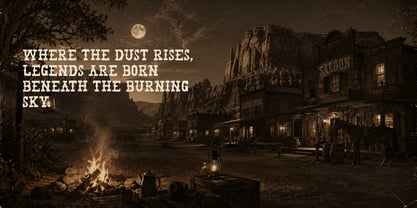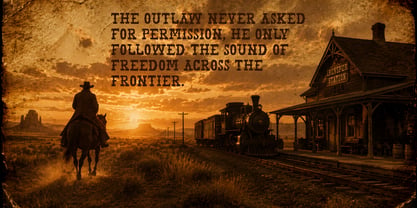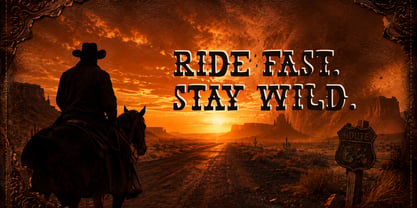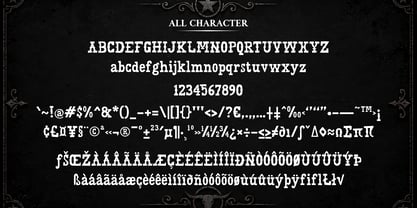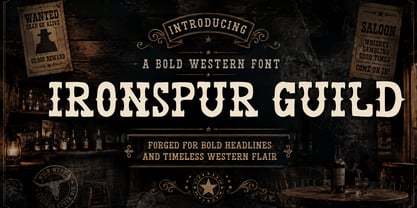
Ironspur Guild
by Mei Suseno
The Ironspur Guild Font Family was designed by Wahyu Eka Prasetya, Mei Suseno and published by Mei Suseno. Ironspur Guild contains 1 styles. More about this family
IRONSPUR GUILD is a bold western display font inspired by vintage saloon signs, outlaw posters, and rugged frontier aesthetics. Featuring strong letterforms with classic cowboy-era character, this typeface delivers a powerful presence perfect for headlines, branding, posters, logos, packaging, apparel, and cinematic western-themed designs.
Its sharp personality combines rustic charm with dramatic vintage elegance, making every word feel legendary and timeless. Whether used for Wild West visuals, retro Americana projects, country branding, or bold editorial layouts, IRONSPUR GUILD captures the spirit of freedom, dust, iron, and frontier storytelling.
Perfect For:
• Western & cowboy themes
• Vintage poster designs
• Whiskey & bar branding
• Apparel & merchandise
• Movie titles & cinematic graphics
• Gaming, rodeo, and rustic packaging
• Bold headline typography
Font Characteristics:
• Strong western-style serif display
• Vintage saloon-inspired details
• Bold, rugged, and masculine feel
• Highly readable for impactful titles
• Authentic old frontier atmosphere
IRONSPUR GUILD — Forged for bold headlines and timeless western flair.
Designers: Wahyu Eka Prasetya, Mei Suseno
Foundry: Mei Suseno